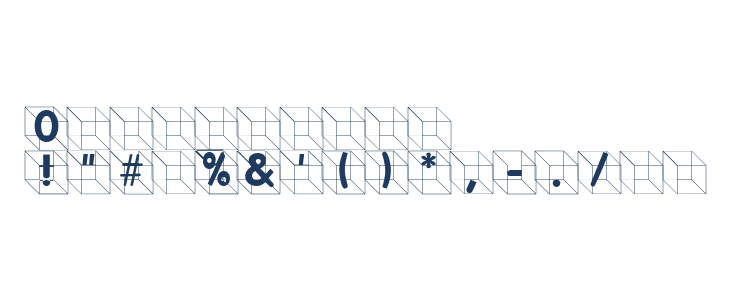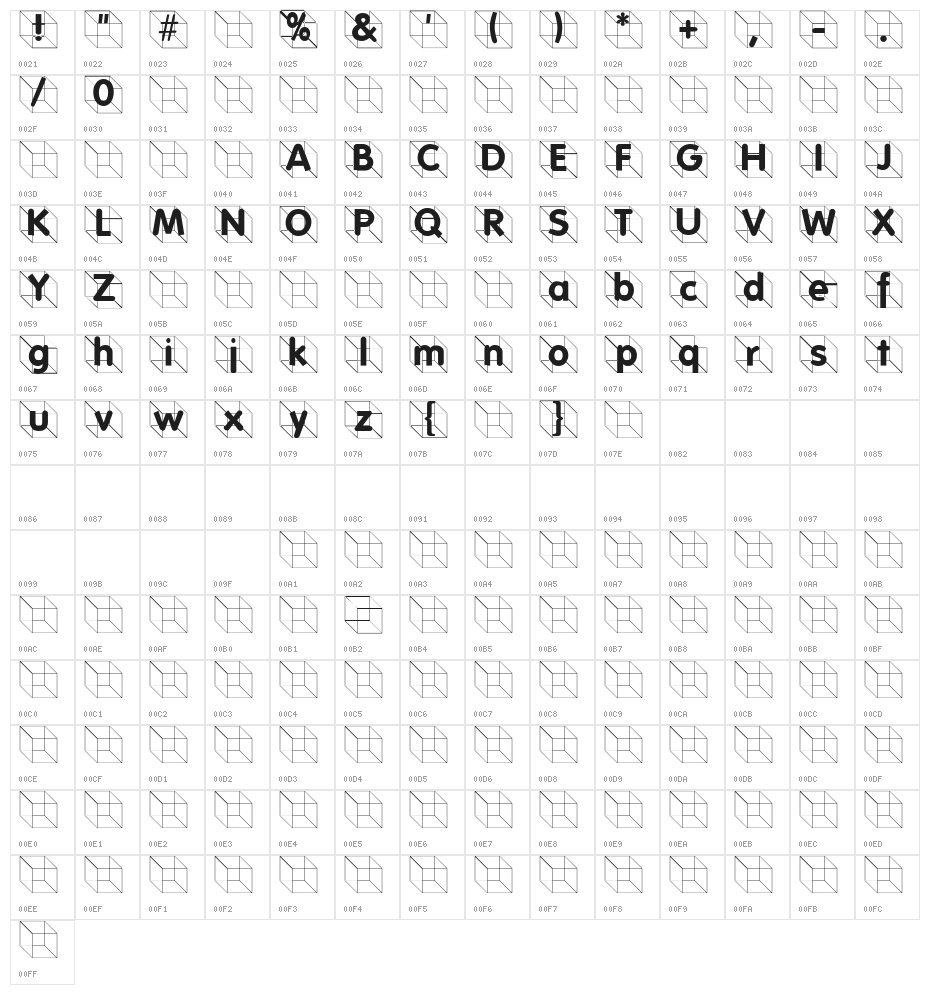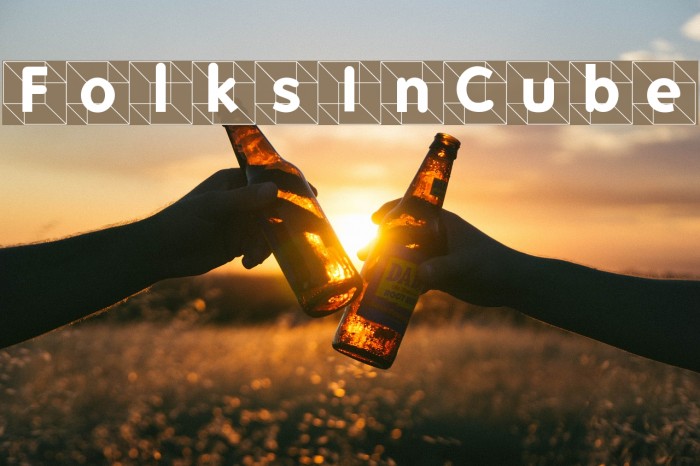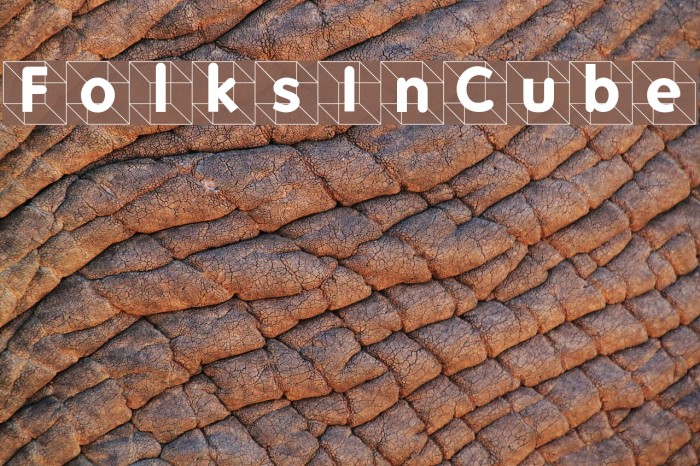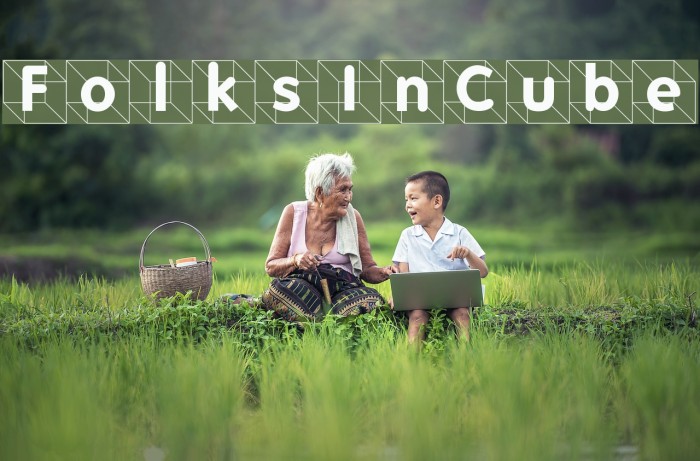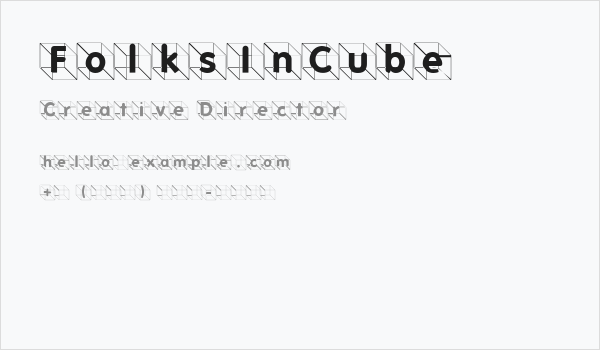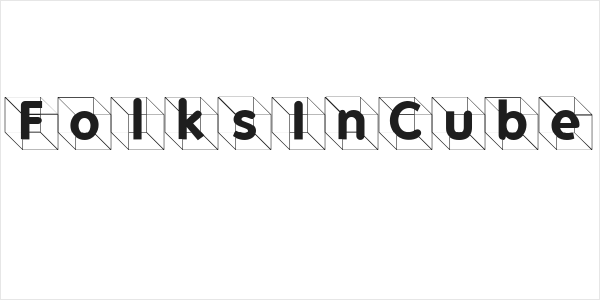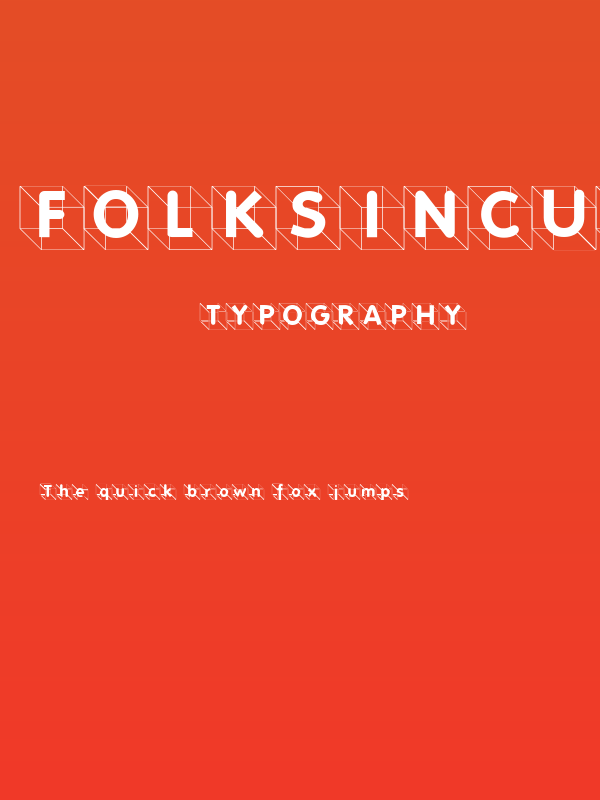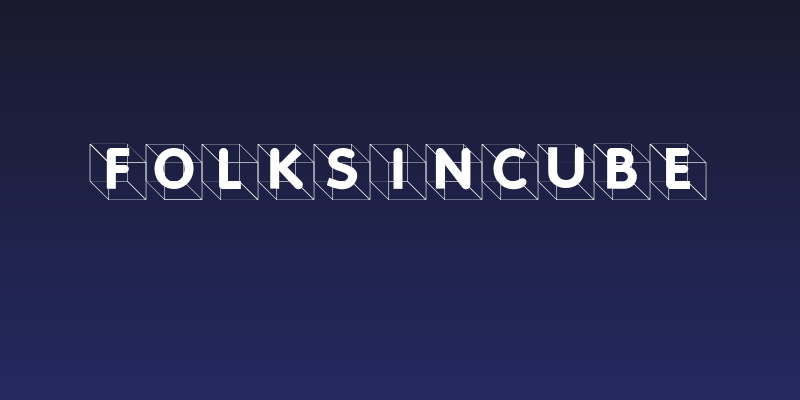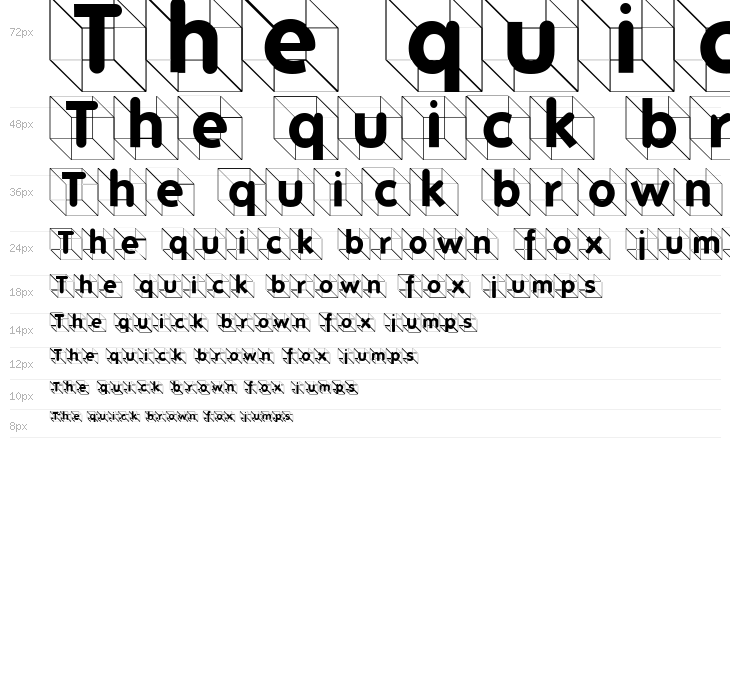
FolksInCube Font
FolksInCube Description
This font features a unique and playful design where each character is encased in a three-dimensional cube, giving it a distinct geometric and modern appearance. The letters are bold and sans-serif, with clean lines that enhance readability while maintaining a creative edge. The 3D cube effect adds depth and an illusion of perspective, making it stand out in any design. This font is ideal for projects that require a touch of innovation and modernity, such as tech-related branding or futuristic themes.
| Proposed Projects | Ideal for tech branding, futuristic designs, posters, and creative advertising campaigns. |